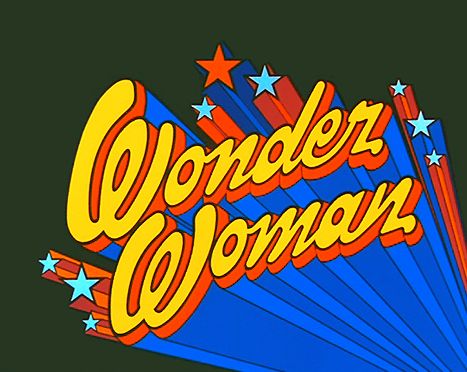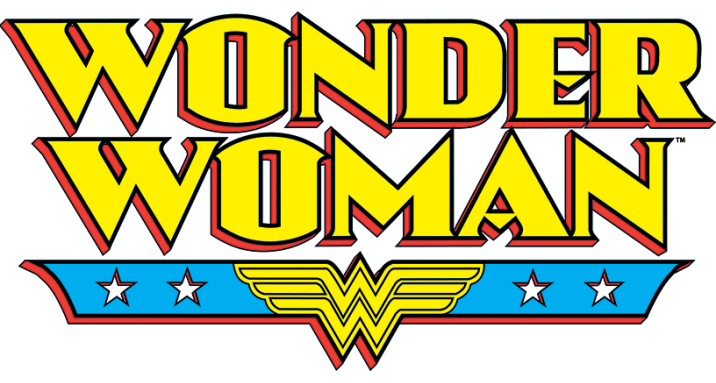
The font has a lot of variations.
Wonder woman font dafont. Looking for wonder woman fonts? The film follows that the pilot steve trevor crashes on the island of themyscira and tells diana prince about world war i, diana leaves her home to try to stop the war and becomes wonder woman. Full box à € by type graphy.
Wonder woman is a 2017 american superhero film based on the dc comics character of the same name. The font family is free and further has multiple types of numerical styles, text figures, and lining styles. Single fighter font is a unique textured street fighter typeface.
Gal gadot makes the worthiest successor to the tv version with lynda carter since 1979. Looking for wonder woman fonts? In modern practice, some fonts, especially those intended for professional use are much costly but we.
May 04 2017 at 1156. The final official poster as shown above uses the font raleway regular for the film title but we also see some alternate posters use the font futura. This font family is the most ideal font just because of its crescent shape and stylish glance.
Initially designed as a single thin weight and was then extended into a 9 weight family by rodrigo fuenzalida. What font was used in wonder woman logo and posters? Ocean dream by vunira design.
Jan 21, 2021 at 09:47. You can purchase it from the link below. Another feature of this display font is that it can be combined well with other basic fonts.
Wonder woman is a 2017 american superhero film based on the dc comics character of the same name. Elegant signature € by nfajry redy. This perfect tilting typeface has a whole lot of variations and connections.
Here are the updated set of. Wonder woman '84 logo font #1. Does anybody know what font is used for the wonder woman film?
The wonder woman font is based raleway regular font.